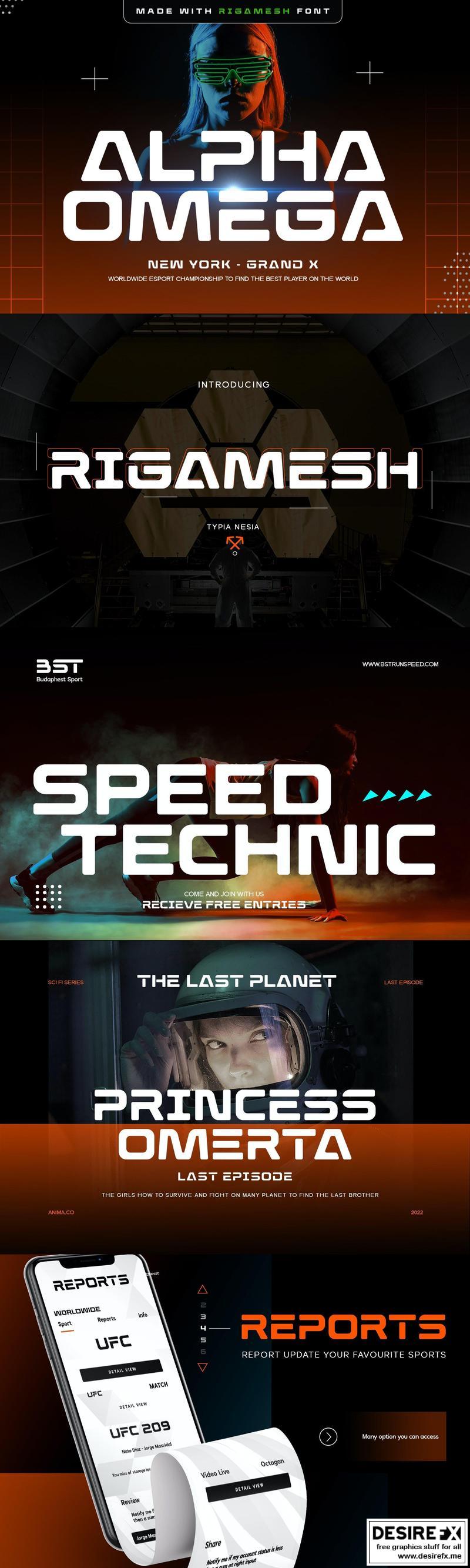
Rigamesh – Scifi and Sport Game Expanded Sans WTCDNQ2
Rigamesh – Scifi and Sport Game Display Font – Black / Bold Expanded Sans Serif Font
Rigamesh Sport Game Sans Serif Display Font is perfect for your up coming projects. Such as logo branding, editorial design, esport design, 80s retro design, game / gaming industry, sport racing, super car brand, esport branding, music poster, website design, modern advertising design, poster quote, book/cover title, special events and any more.